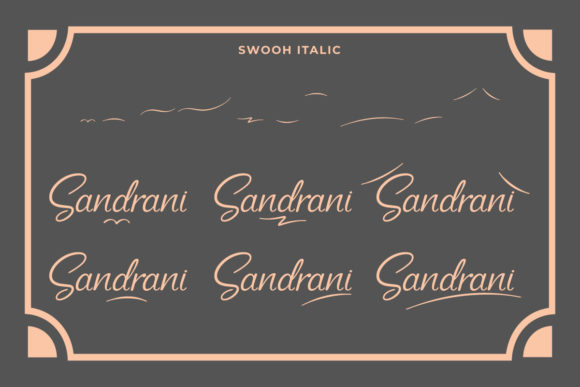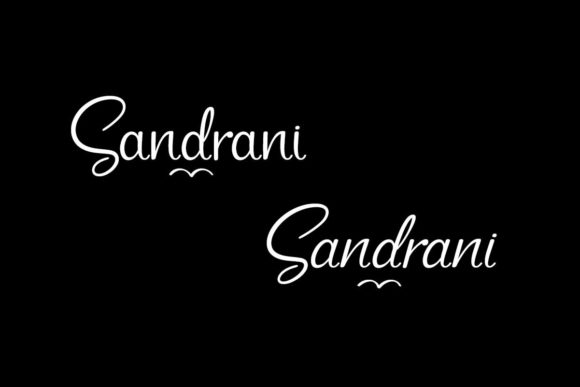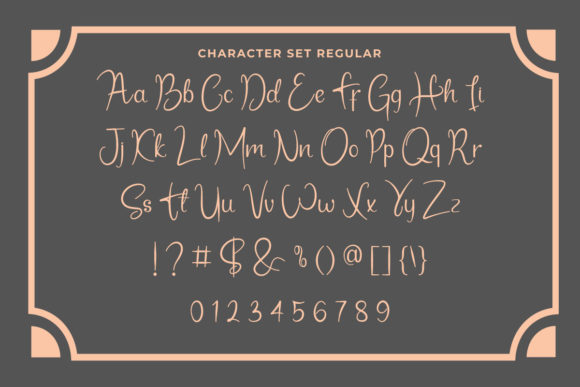
About Sandrani Font
SandraniĀ is a curly script font with a simple handwriting style. It has a stunning character set, perfectly managed with well-spaced letters. The theme style of this font is simple, elegant, sophisticated, and stylish.